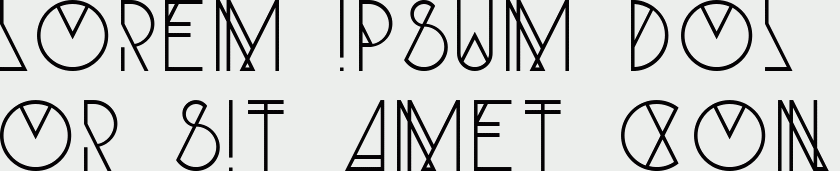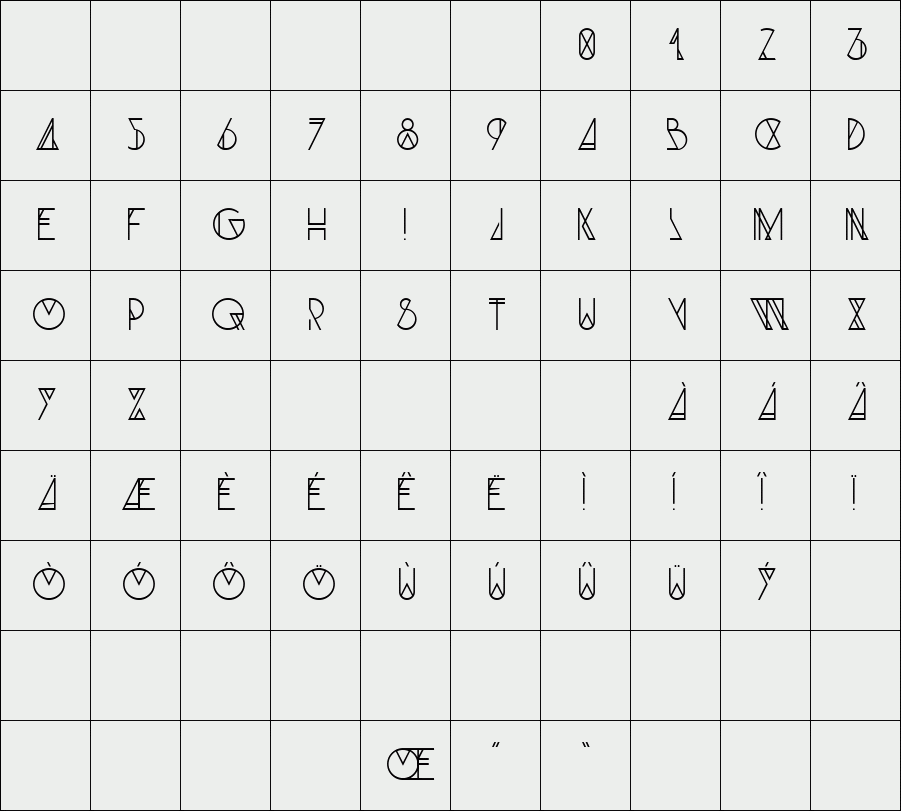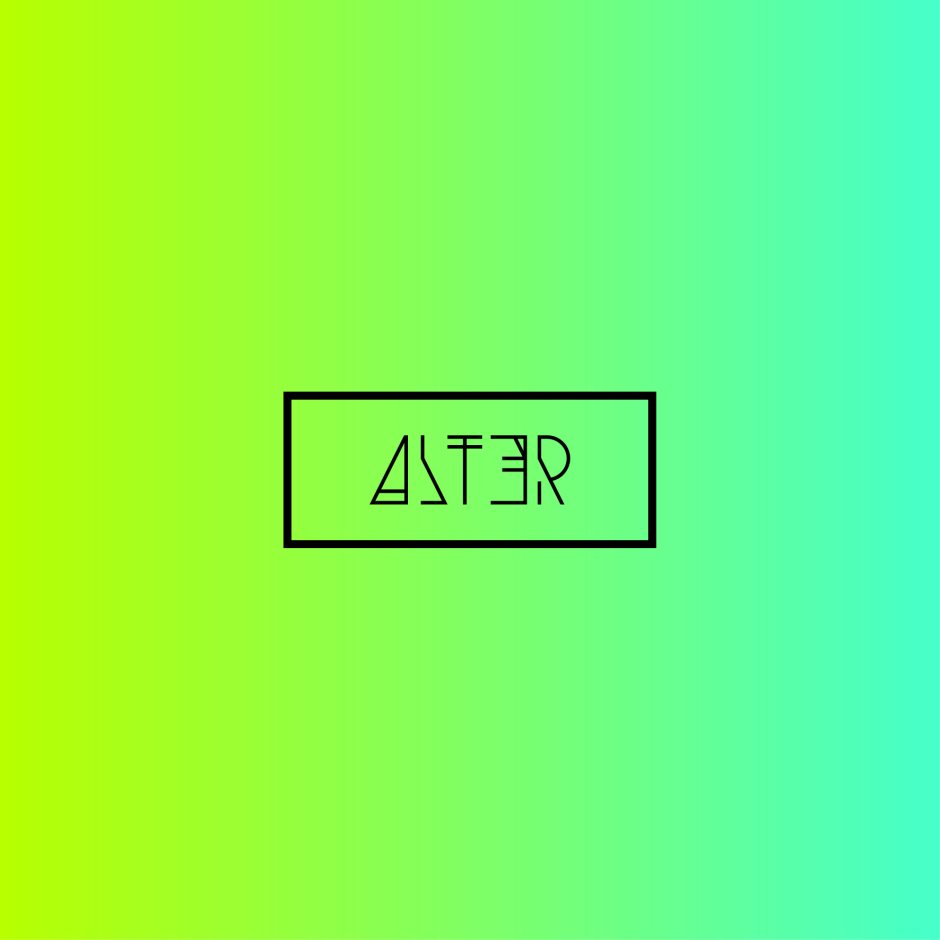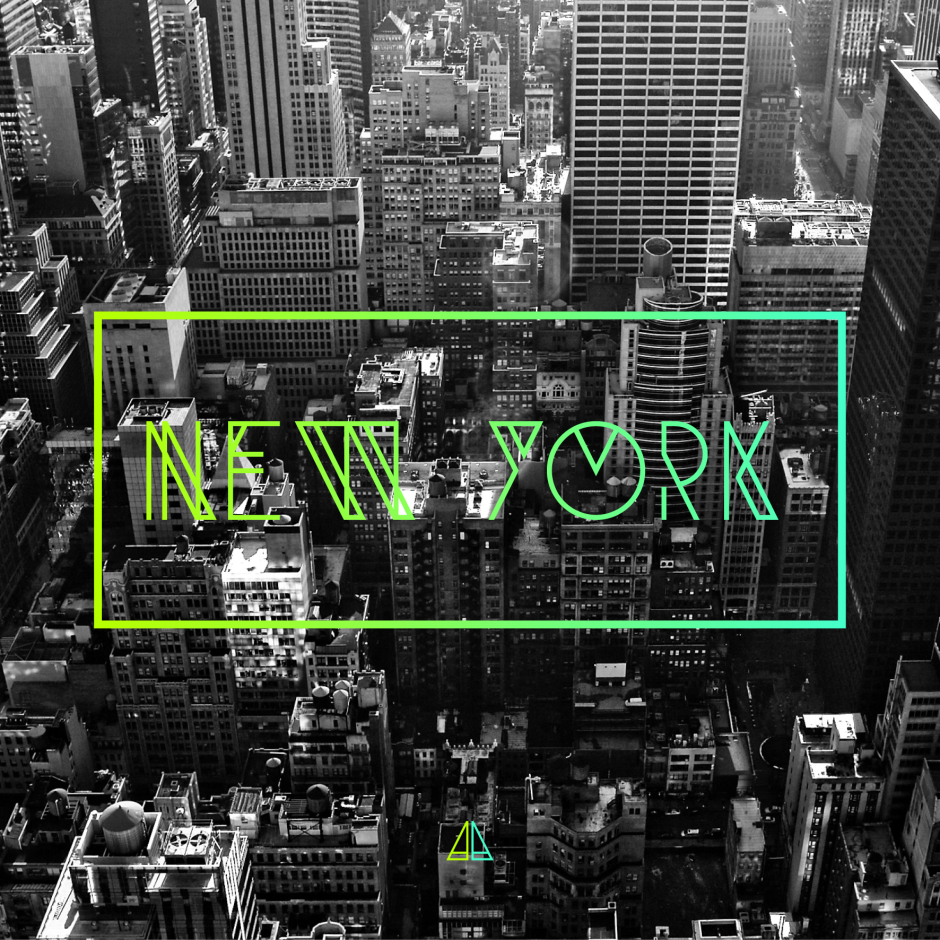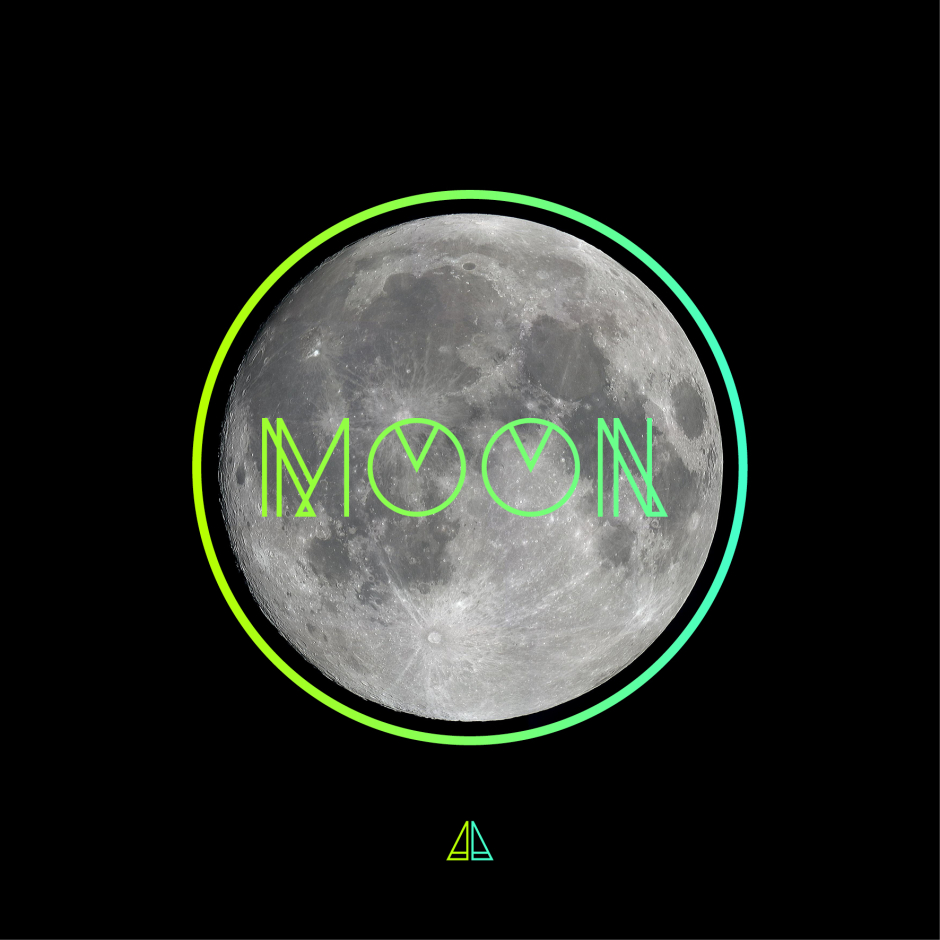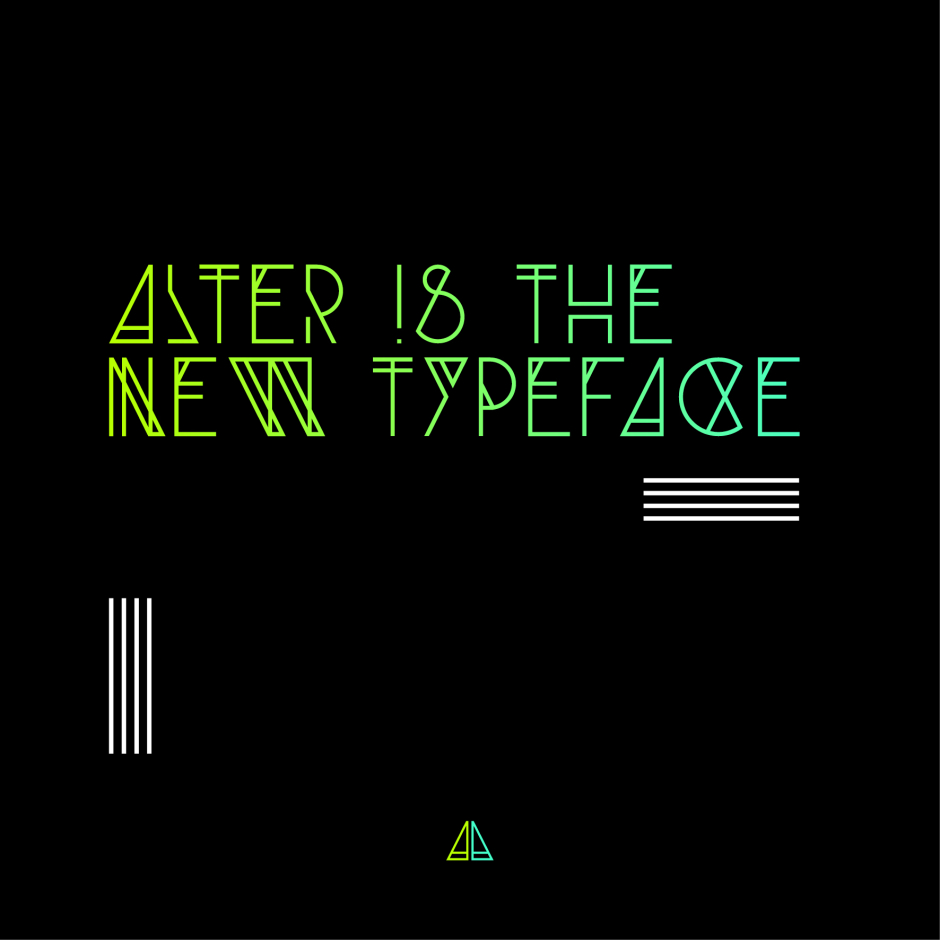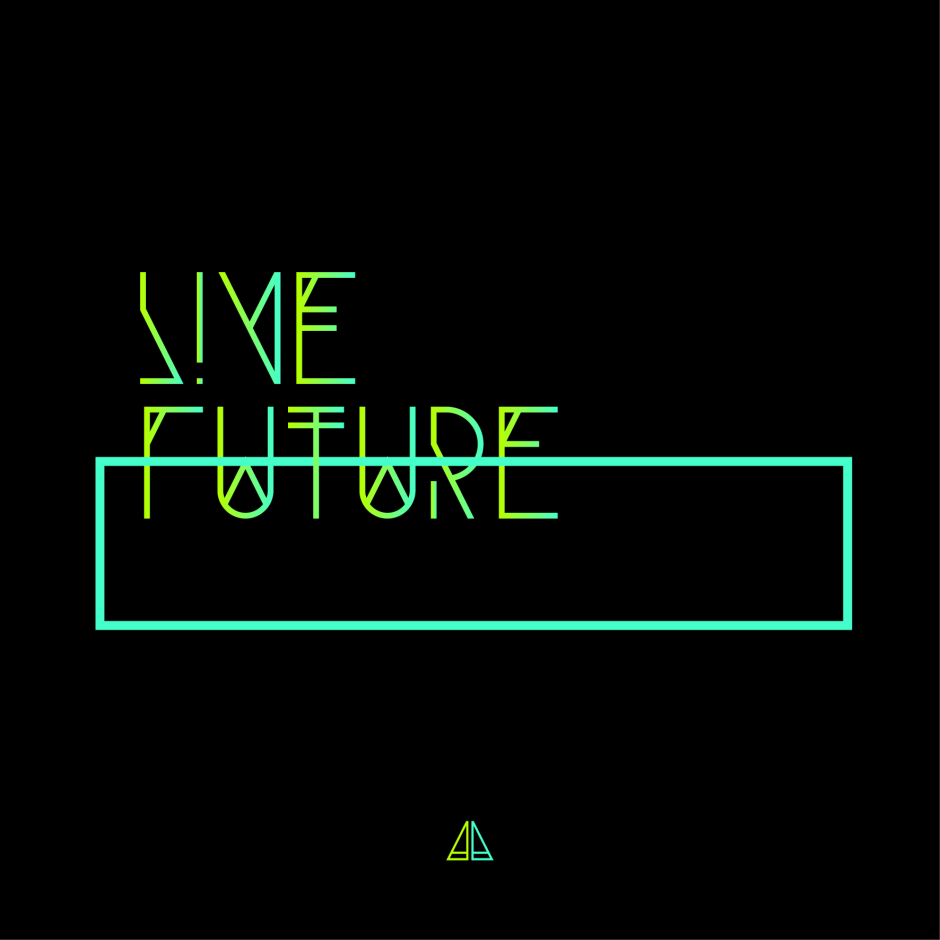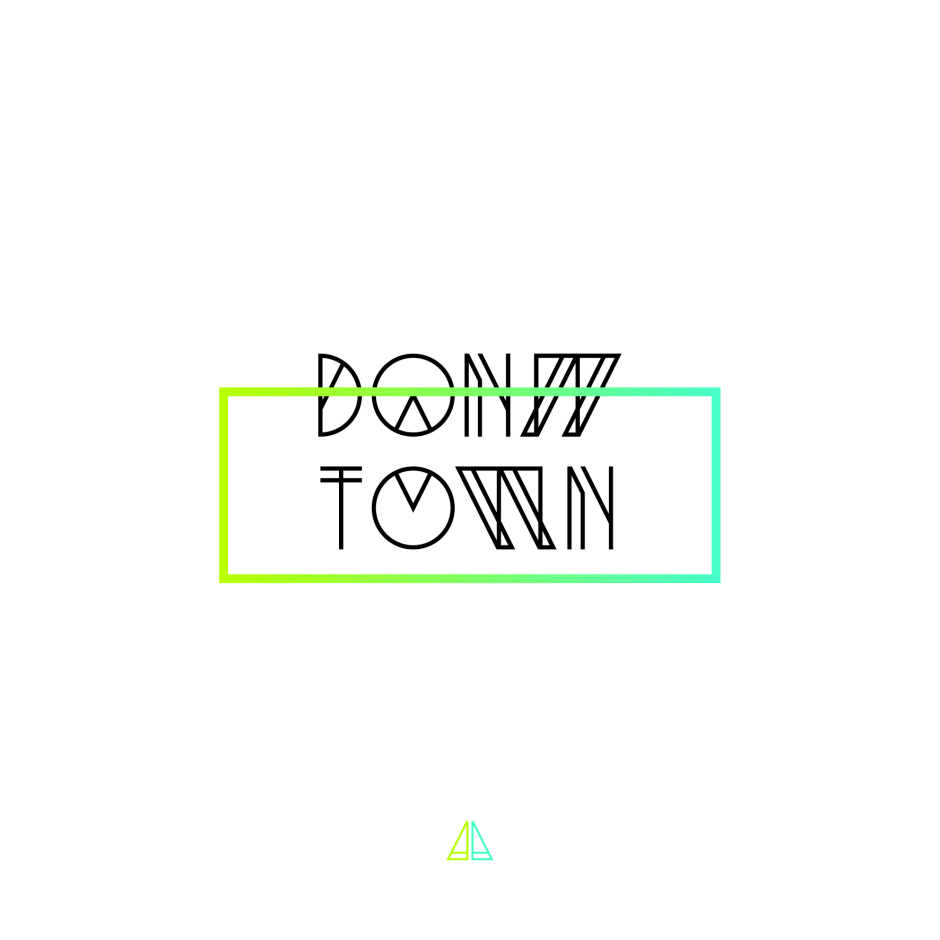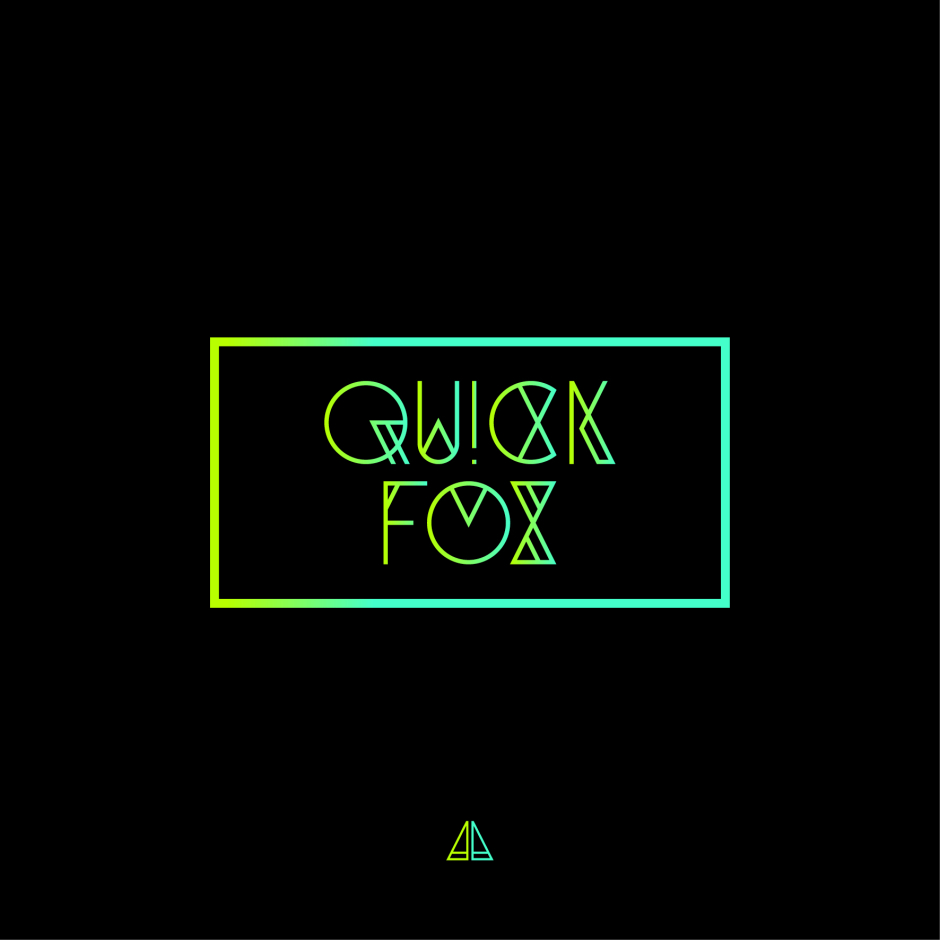
Alter
Alter is typeface based on geometric shapes. It is very suitable for titles, logos, posters, that’s why it is composed by only capital letters and numbers.
Designer: Andrea Mantuano